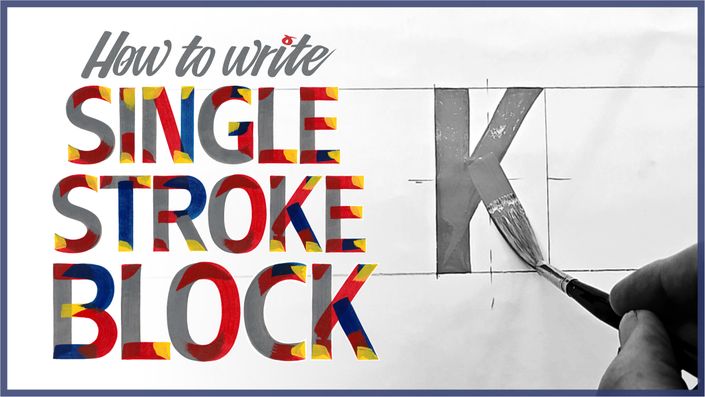
Learn how to draw professional quality Sans Serif Lettering then hand paint the alphabet using a Traditional Signwriter's Single Stroke Technique.
UNDERSTANDING & DRAWING GOTHIC LETTERFORMS
In this comprehensive online course you'll learn everything you need to know to be able to draw Professional Quality Lettering. John King takes you through an intensive study of a Sans Serif Gothic Alphabet unlocking all the secrets of letter construction based on the foundational rules of the original Roman Alphabet and how they apply to all good modern typefaces.
You'll create your own hand drawn alphabet by following real time detailed demonstrations of how to draw each letter and numeral, then be shown how to apply the principals you've learned to create countless variations of the alphabet and design your own custom typefaces.
HOW TO WRITE SINGLE STROKE BLOCK
"How to Write Single Stroke Block" is designed for Signwriters and Lettering Artists who have worked on their Basic Signpainter's Brush Skills and are ready to take the next step in learning to write a Traditional Signpainter's Single Stroke Block Letter Alphabet.
Learn the tricks to create each Capital Letter, Numeral and Ampersand using correct Stroke Weight Distribution, Letter Proportions and various Cornering Techniques.
After practicing the methods you'll learn in this course using John's simple framework method, you'll soon be able to write a Single Stroke Block Alphabet freehand without the need for time consuming markouts, which is an invaluable skill for a signwriter.
With this comprehensive course bundle you will learn how to draw professional standard lettering with a thorough understanding of letter construction rules and fundamentals applicable to all good typography design, along with how to execute a traditional signpainter's Single Stroke Block Letter Alphabet by brush.